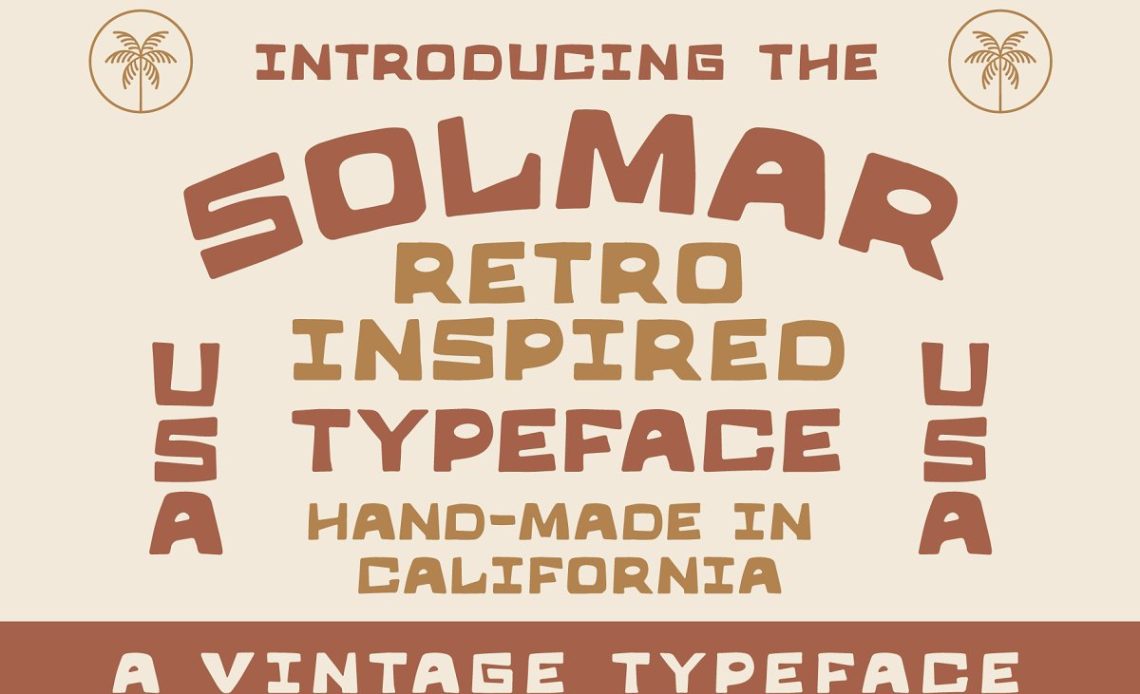
Are you tired of the same old boring fonts? Looking for something unique and captivating for your design projects? Look no further! Introducing the Solmar Typeface, a game-changer in the world of fonts.
Handcrafted with love and attention to detail by the talented Adam Nienow, Solmar Typeface is the perfect blend of elegance and quirkiness. Its irregular letter forms add a touch of organic and gritty charm to your designs, making them stand out from the crowd.
Whether you're working on a poster, branding, or illustration project, Solmar Typeface has got you covered. Its versatility knows no bounds, allowing you to unleash your creativity and bring your ideas to life. With this font, your designs will speak volumes and leave a lasting impression on your audience.
But what sets Solmar Typeface apart from other fonts on the market? It's the perfect choice for those looking to add a touch of sophistication to their wedding cards. The exquisite letter forms and elegant curves make it the best font for wedding invitations, setting the tone for your special day and creating a memorable experience for your guests.
But it's not just about weddings! Solmar Typeface is a versatile font that can be used for a wide range of projects. Whether you're designing a logo for your business, creating eye-catching social media graphics, or crafting a unique packaging design, this font will elevate your work to new heights.
Imagine the impact your designs will have when you combine the beauty of Solmar Typeface with your creative vision. It's a match made in design heaven! Your audience won't be able to resist the allure of this captivating font, and they'll be drawn to your brand like bees to honey.